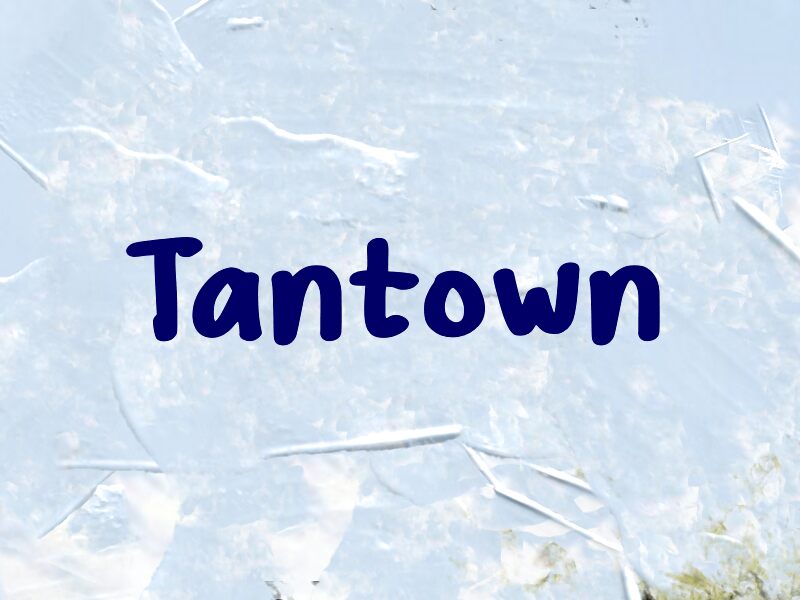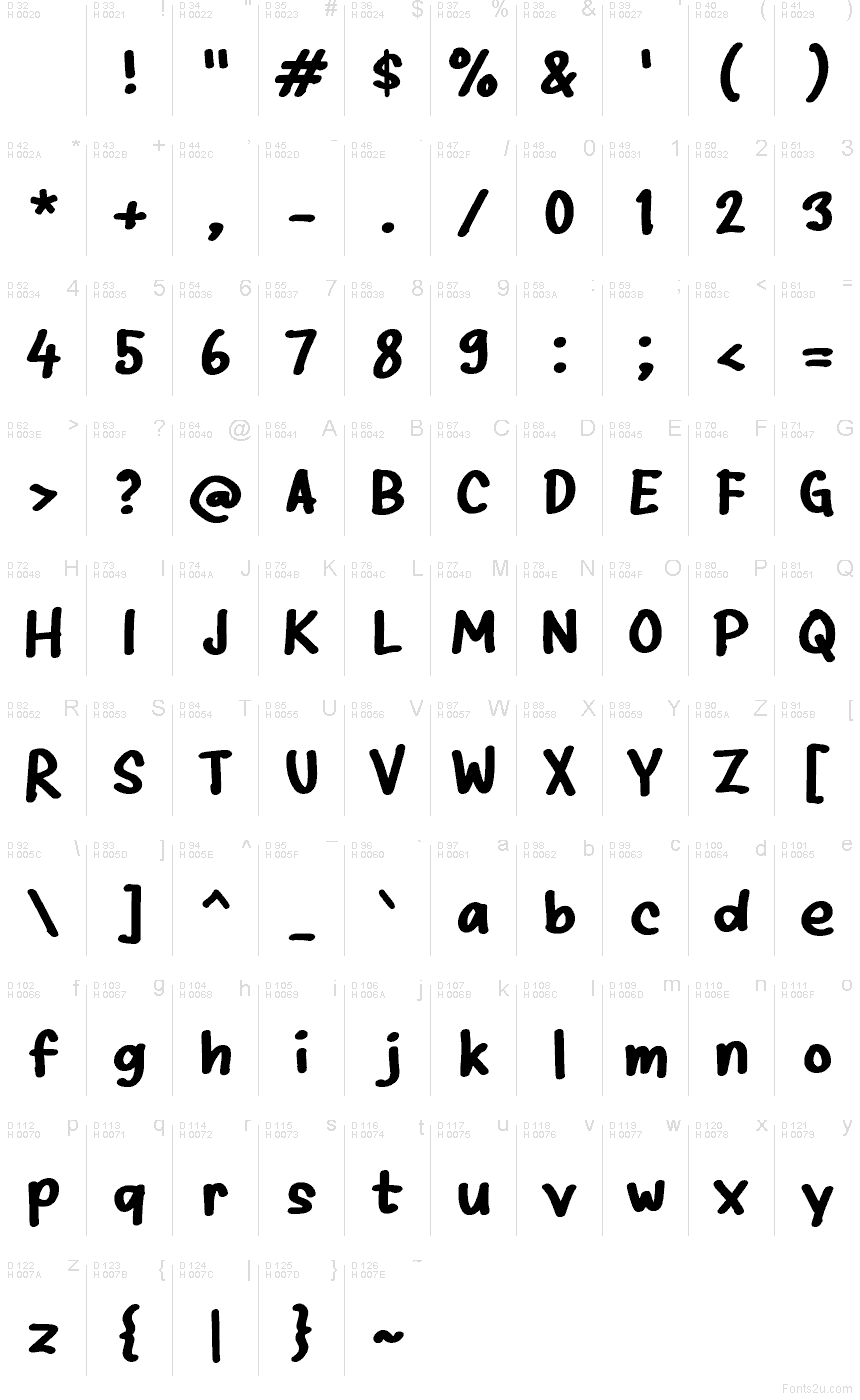
Tantown
Tantown font by wepfont.com is a free handwritten typeface with the bold, inky swagger of a thick marker on poster board. Its rounded, bubble-like letters feel soft and friendly, yet the strokes are dense and weighty, so every word lands with a clear, confident presence. Slight irregularities in the shapes keep it playful and human, avoiding that stiff “fake handwriting” look and giving your layouts a warm, approachable voice.
Using Tantown, you get a handwriting style that actually reads well at larger sizes, making it a natural fit for kids’ branding, classroom materials, craft packaging, social posts, YouTube thumbnails, and cheerful event flyers. This free font shines when you let it breathe in short phrases and bold headings; pair it with a clean geometric sans for small supporting text to keep everything legible and balanced.